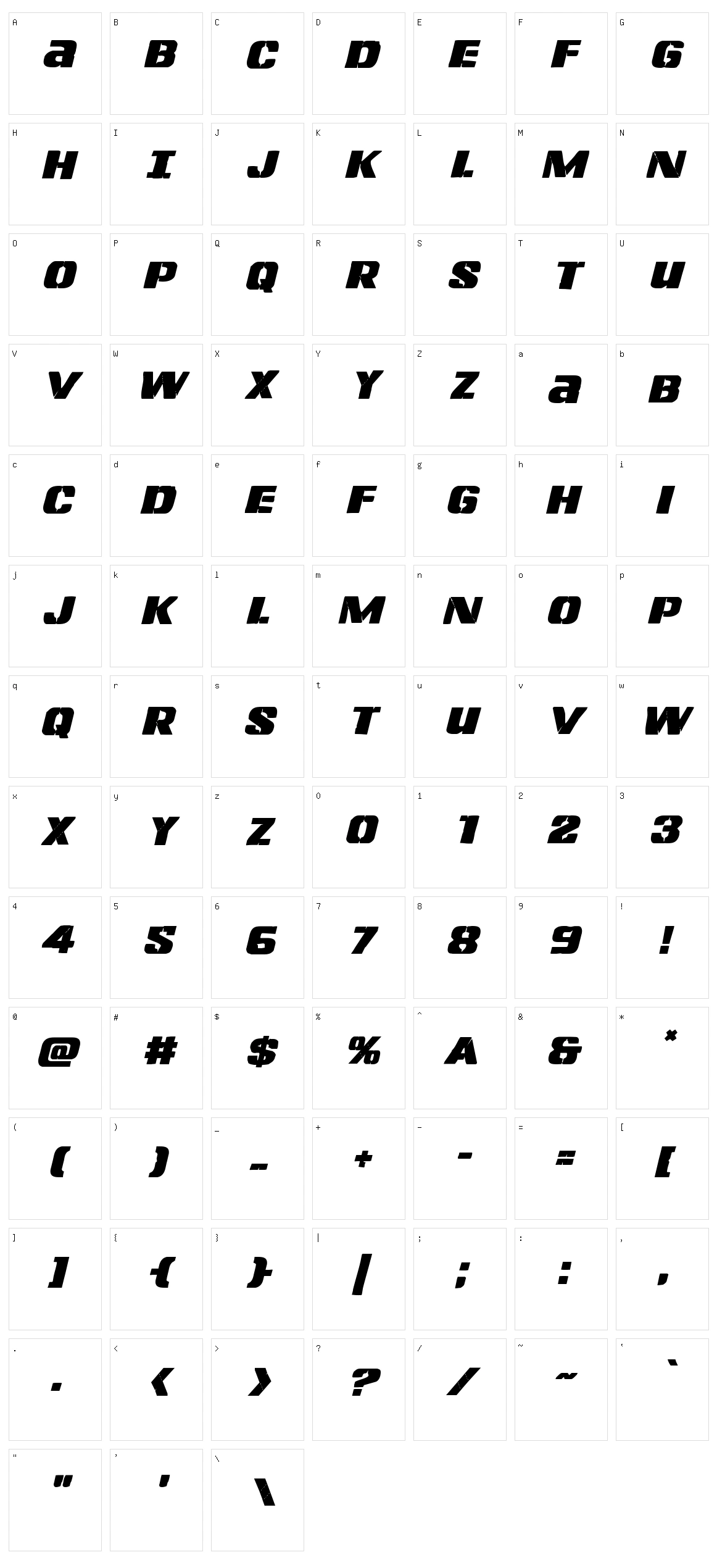
The free font Left Hand Luke is carefully designed by Iconian Fonts, showcasing a thoughtful balance of creativity and usability and falls under the Eroded font style. When you download the ZIP file, it contains only 463.01 KB of font files, making it lightweight and quick to download. Please review the license details below to understand permitted usage and distribution rights. If license information is not available, we recommend using this font for personal projects only or contacting the author directly for commercial usage permissions.
This font comes with the following 15 versions: Regular, Italic, Condensed, Condensed Italic, Expanded, Expanded Italic, Bold Outline, Bold Outline Italic, 3D, 3D Italic, Staggered, Staggered Italic, Rotated, Rotalic and Leftalic.